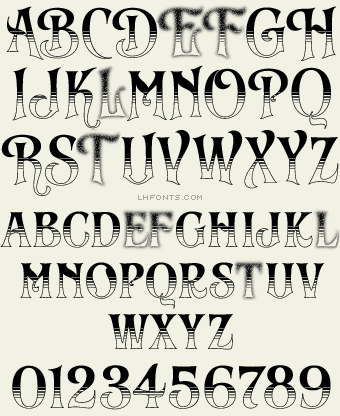
Albury from the talented Steve Contreras has a definite retro 70's vibe that makes it perfect for album covers, posters and generally anything artistic and handcrafted. You'll enjoy experimenting with the 4 layered fonts included. Each font includes 49 bonus glyphs and 17 bonus ligatures.